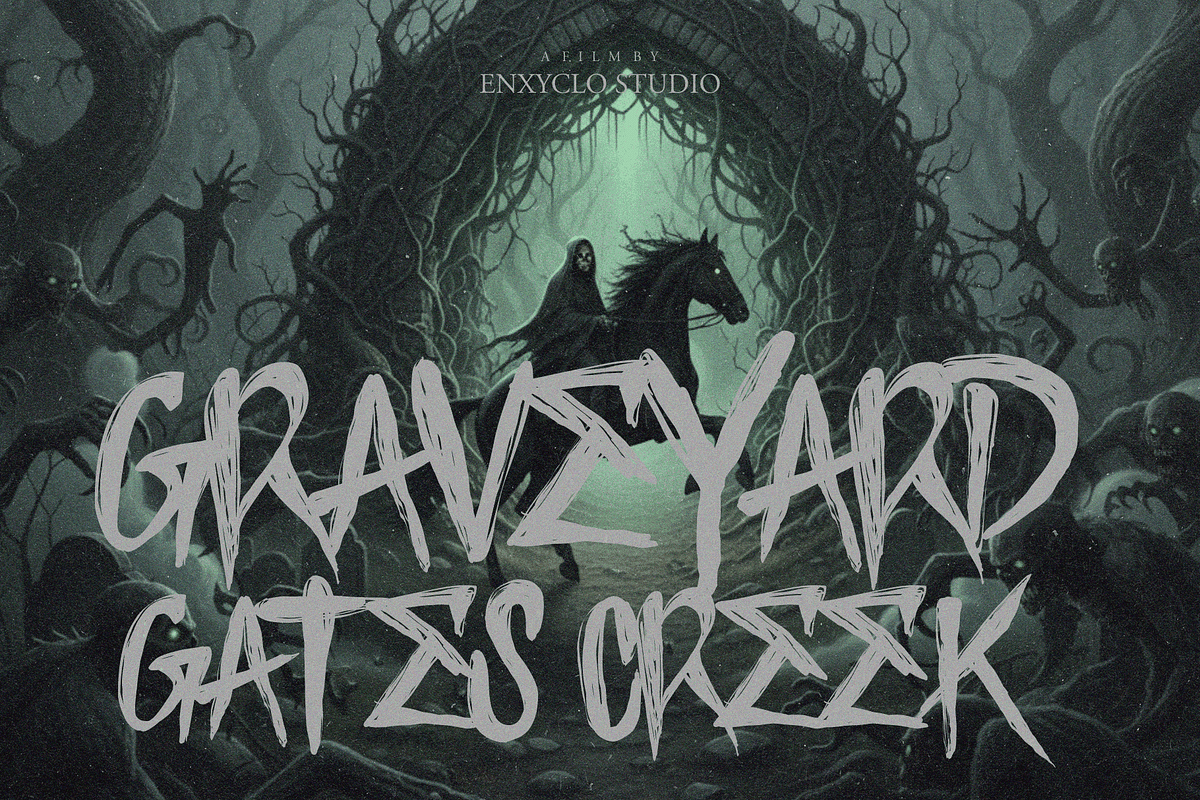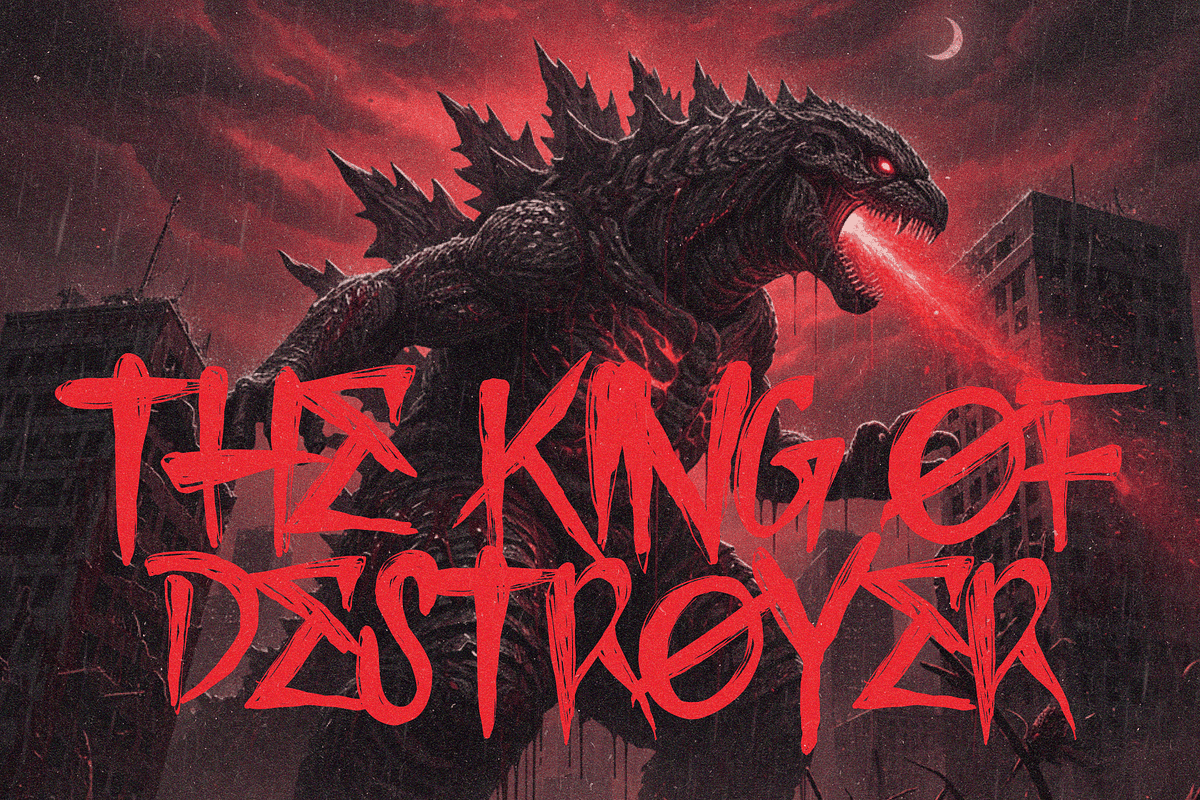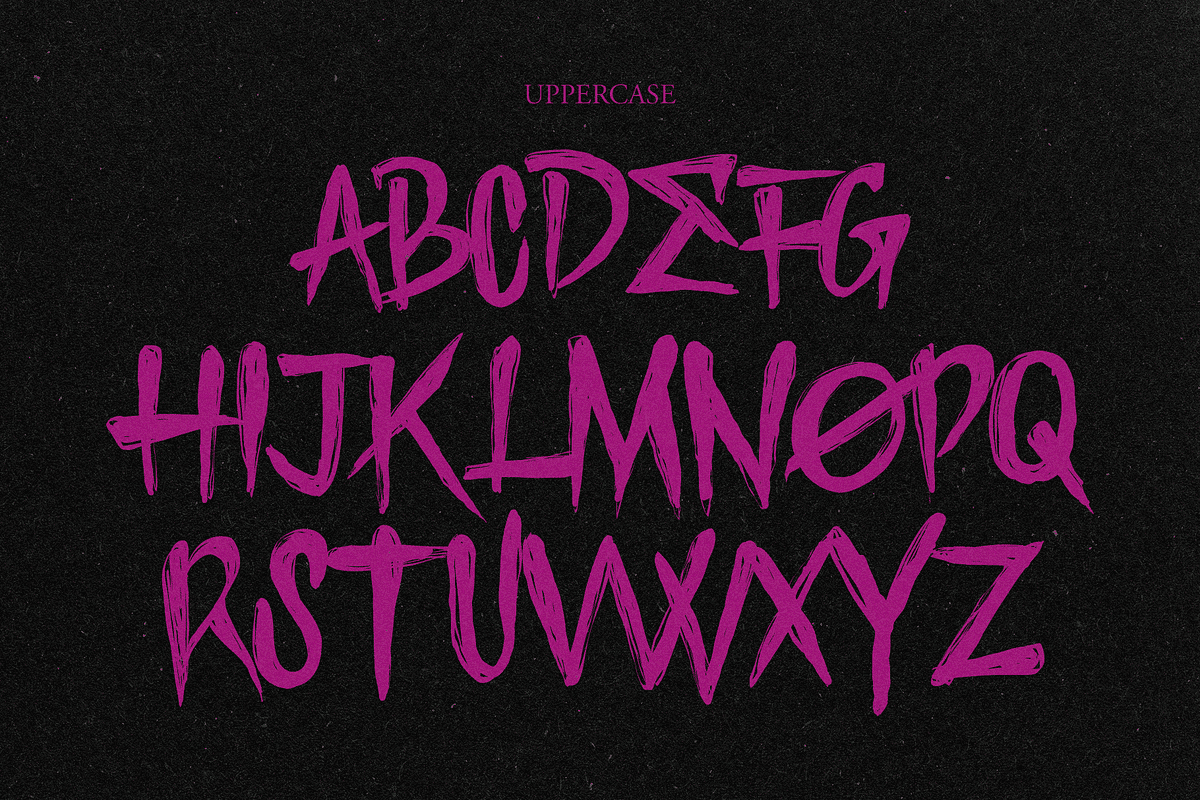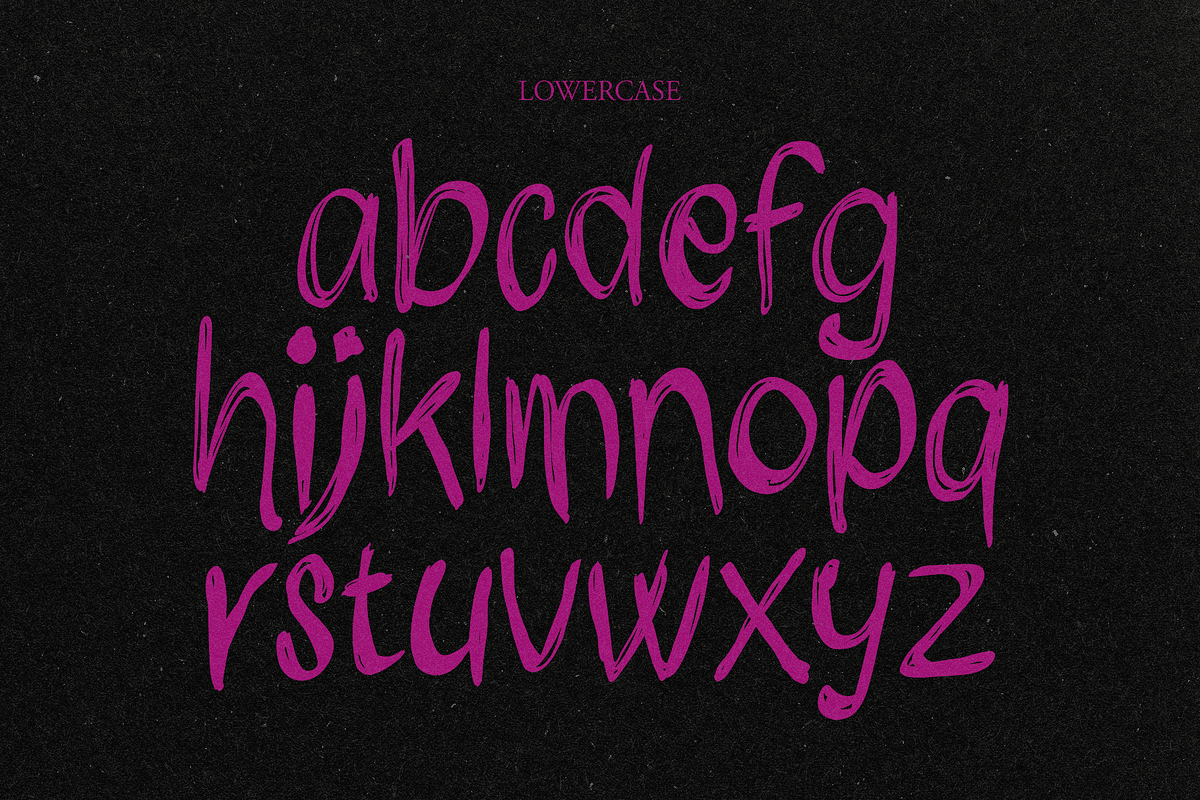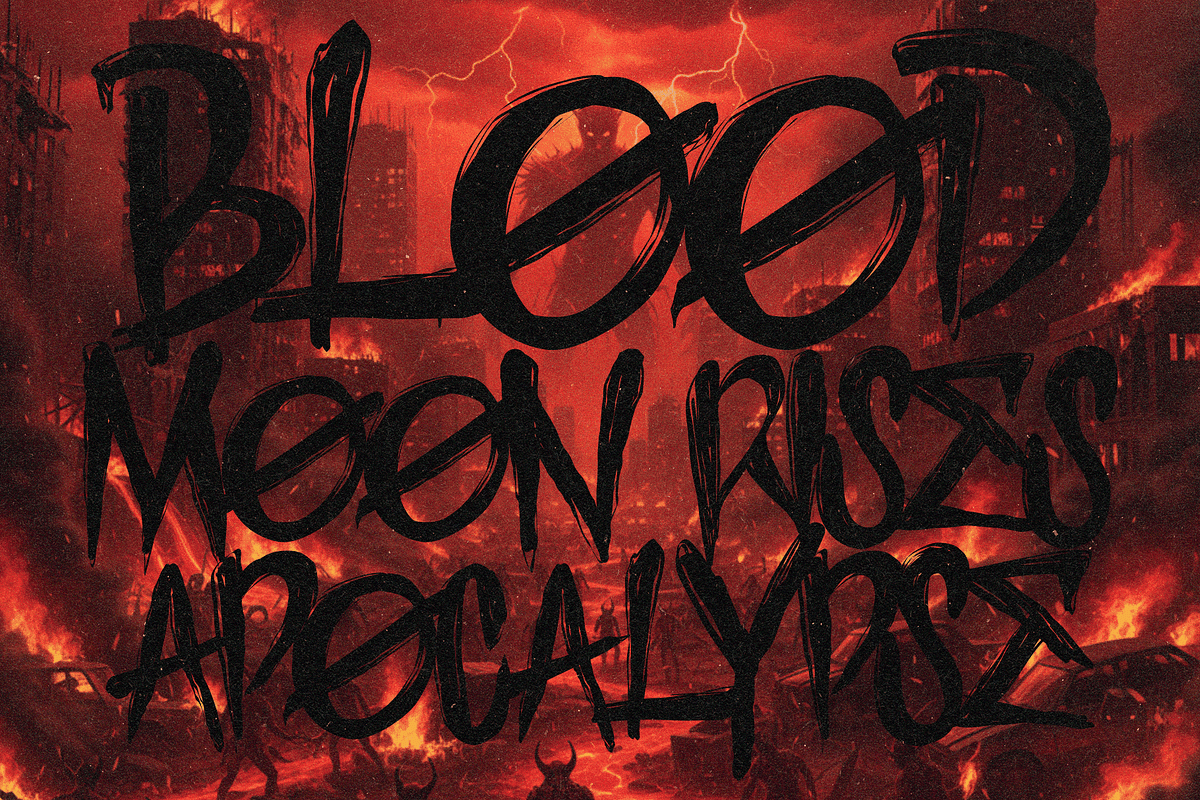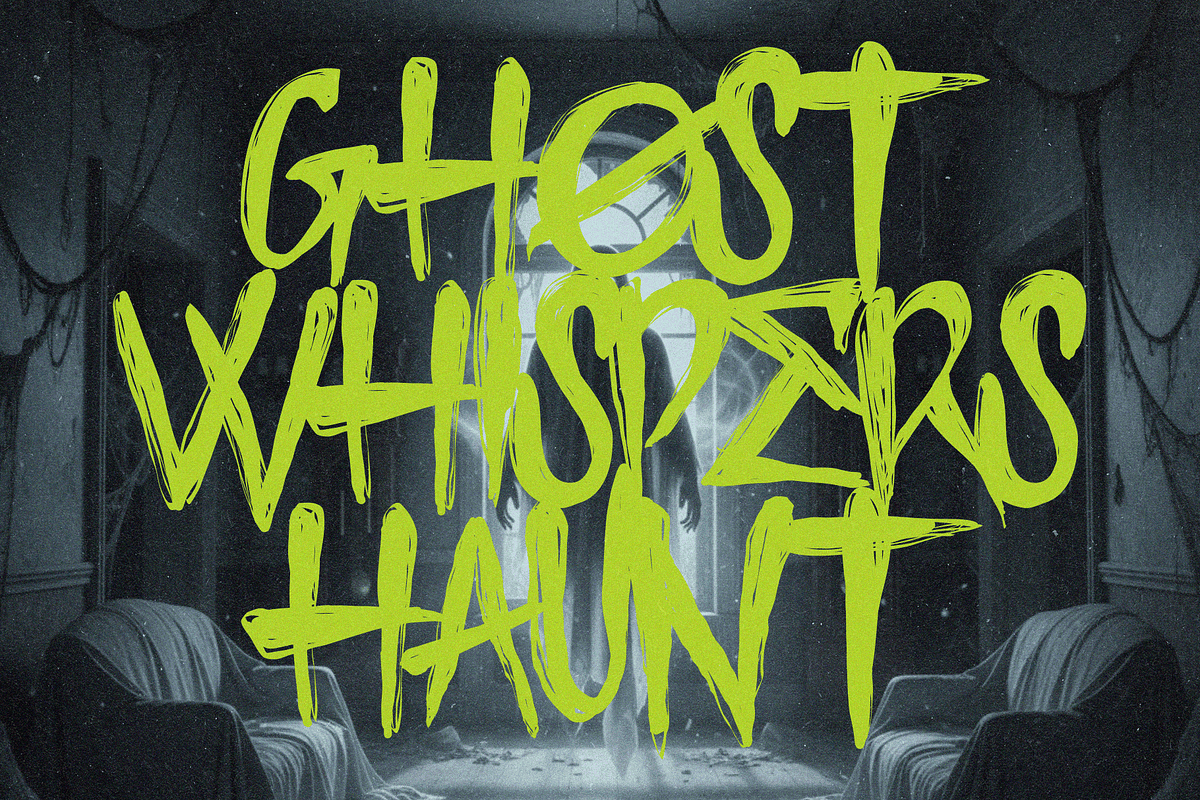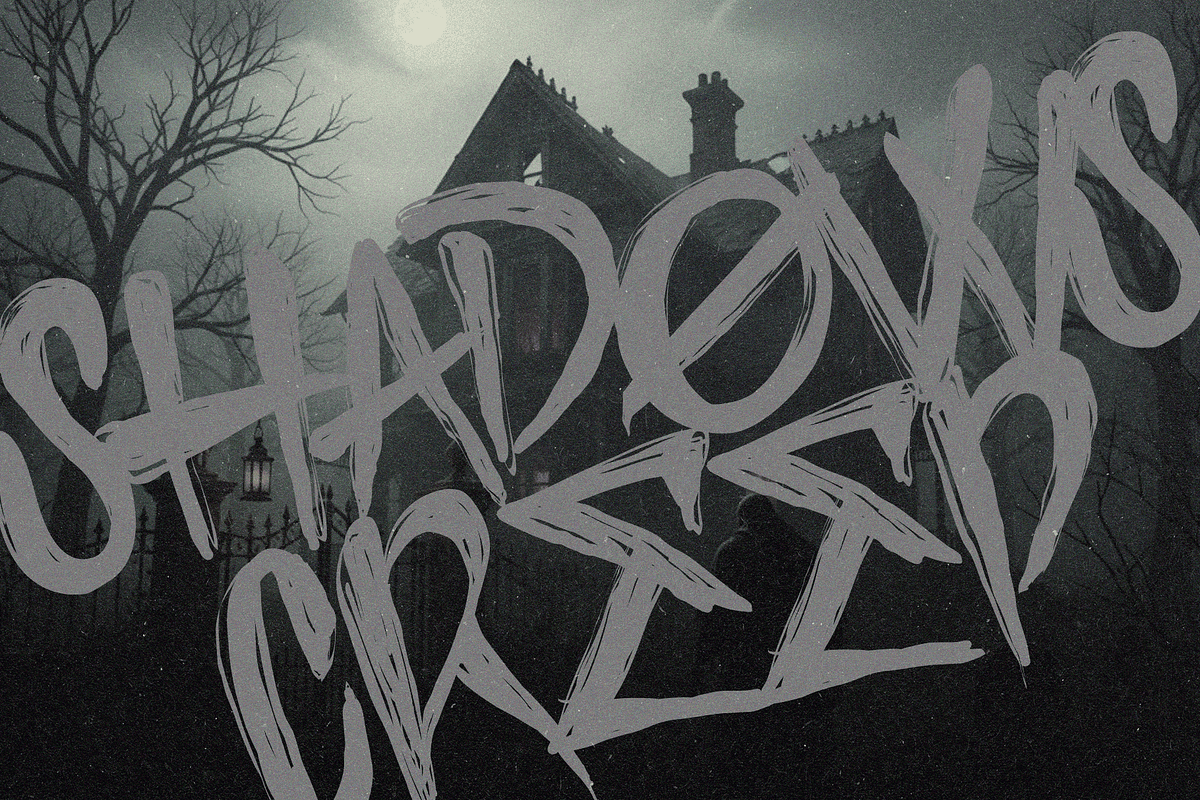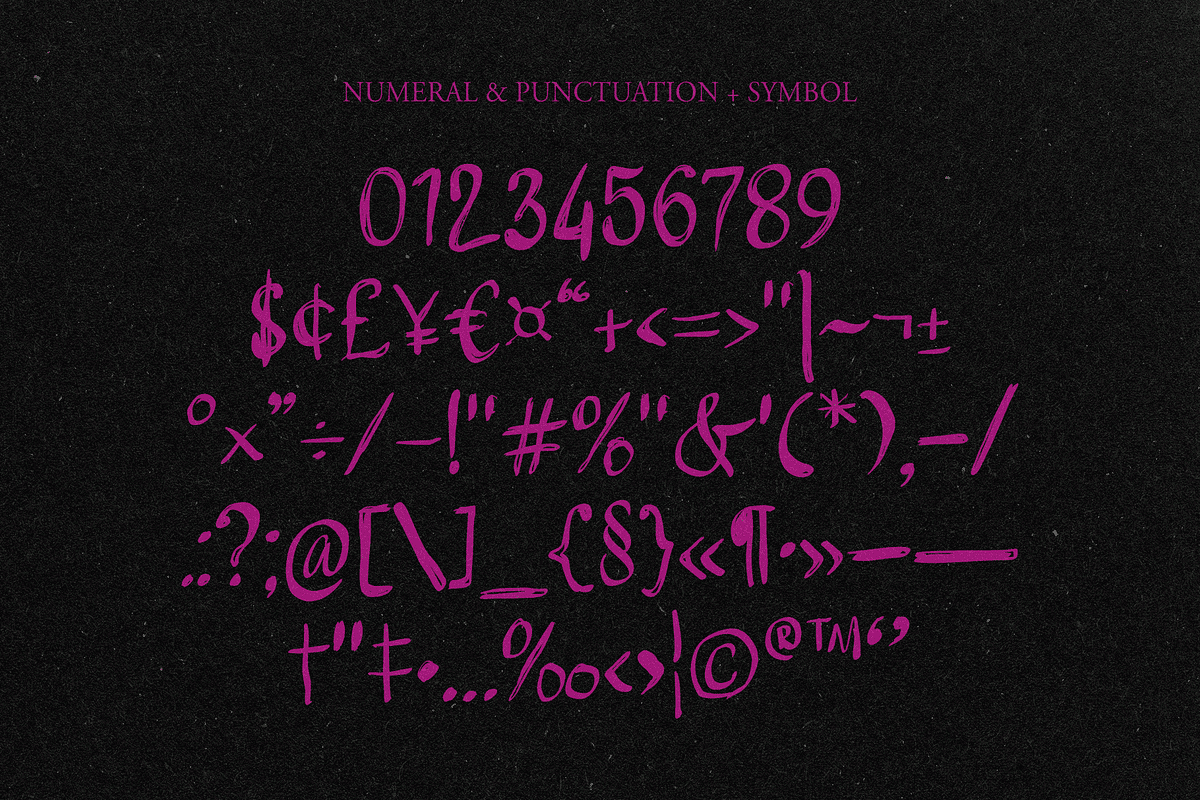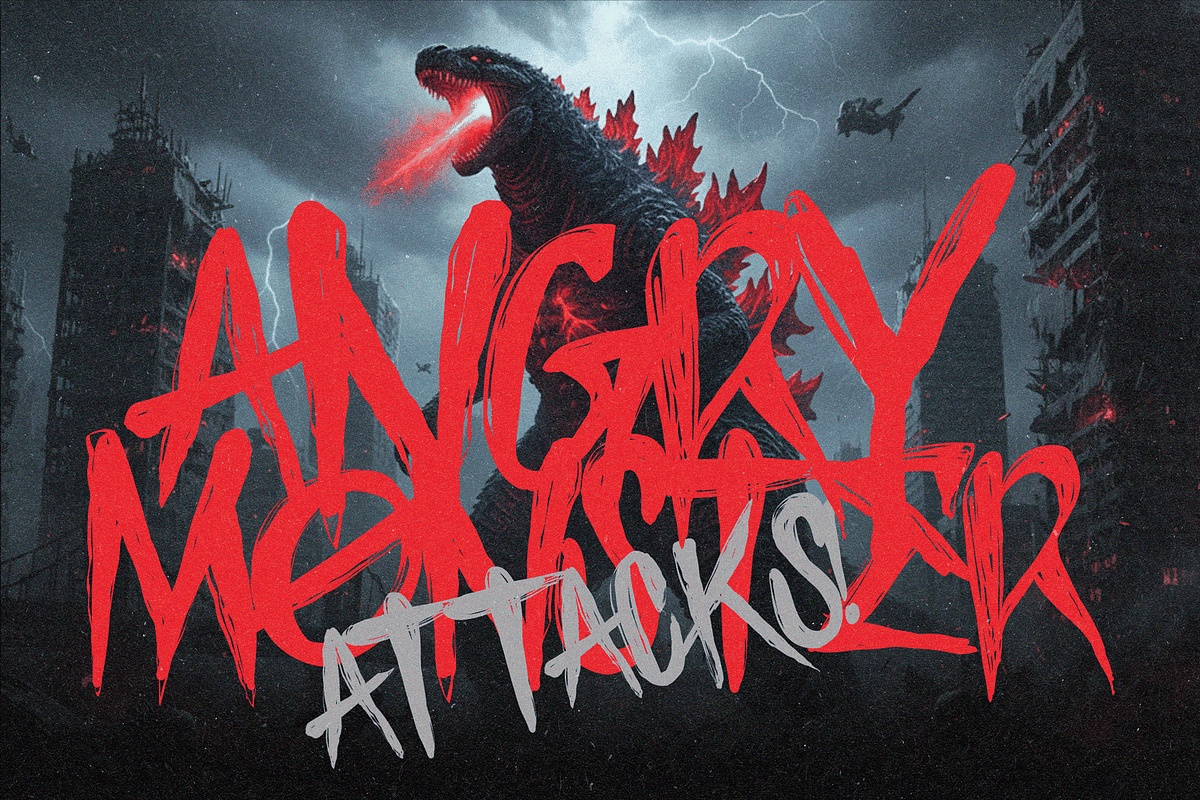
Dark Whispers — Horror Font
Dark Whispers is a bold, display typeface crafted to evoke the eerie and unsettling atmosphere of classic horror. Perfectly designed for spooky headlines, Halloween posters, and any creative project that aims to capture a scary, creepy vibe. This font stands out with its unique, chilling letterforms that bring an authentic horror aesthetic to your design work, making it the ultimate choice for adding frightful flair. Whether you’re designing a Halloween event, a horror movie poster, or any project that demands a touch of creepiness, Dark Whispers delivers bold, impactful visuals that grab attention and set the perfect tone. This versatile typeface combines terrifying style with readability, ensuring your scary message is not just seen but felt.
PERFECT FOR
- Halloween party invitations and posters
- Horror movie and book titles
- Spooky event branding
- Creepy headlines and banners
- Scary-themed merchandise design
- Any project wanting a bold horror aesthetic